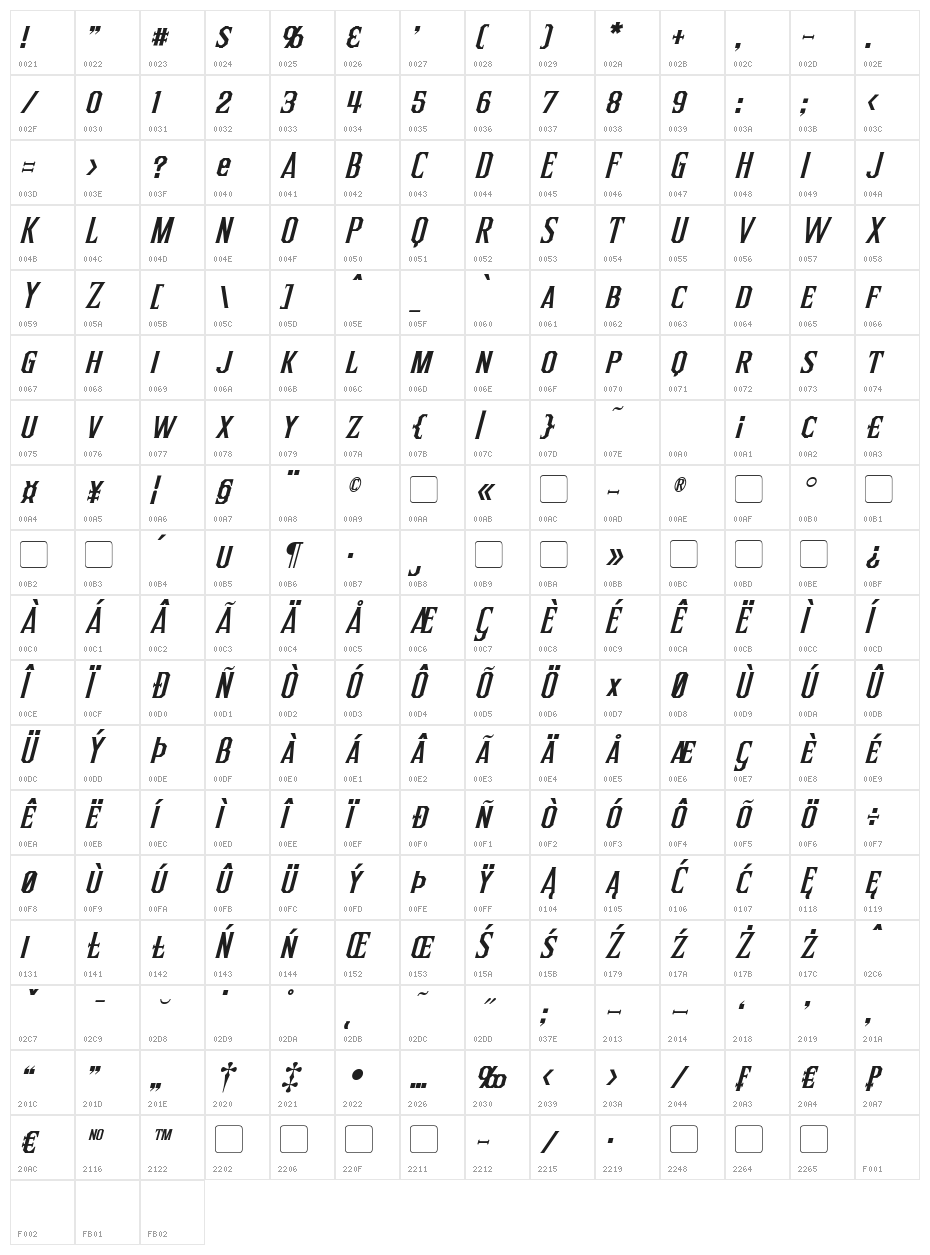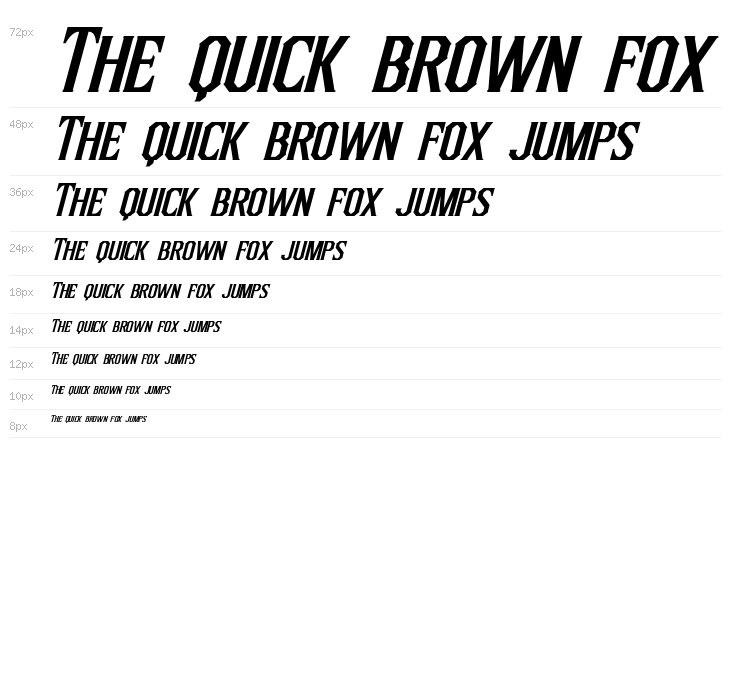
Inquisitor Italic Font
Inquisitor Italic Description
This font features a bold and dynamic italic style, characterized by sharp angles and a forward-leaning posture that conveys a sense of speed and urgency. The uppercase letters are tall and narrow, with distinct geometric shapes that create a strong visual impact. The lowercase letters maintain the same angular design, ensuring consistency across the typeface. Numbers and special characters are designed to match the overall aesthetic, making them suitable for a variety of applications. The font's unique style makes it ideal for projects that require a modern and edgy look.
| Proposed Projects | Ideal for sports branding, action movie posters, dynamic logos, and edgy editorial design. |